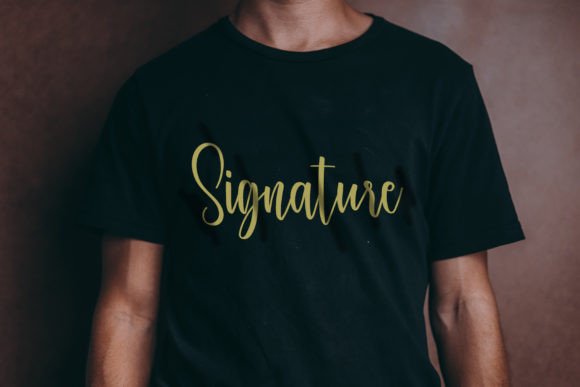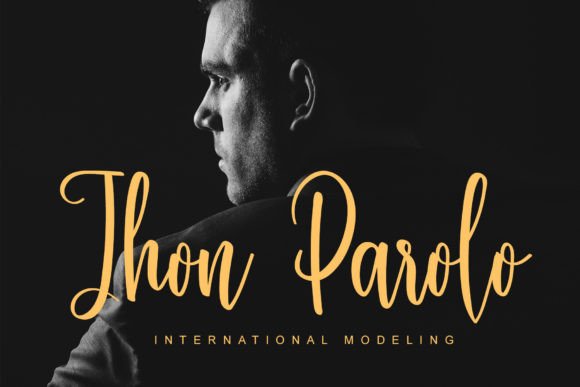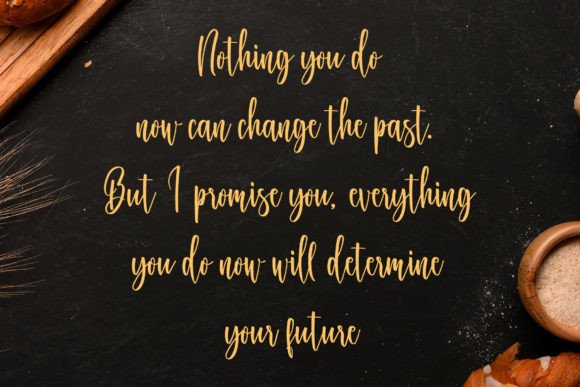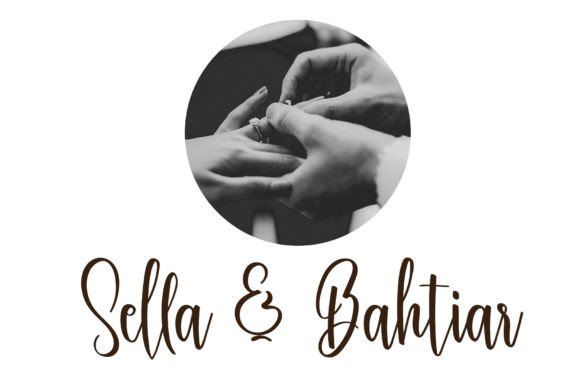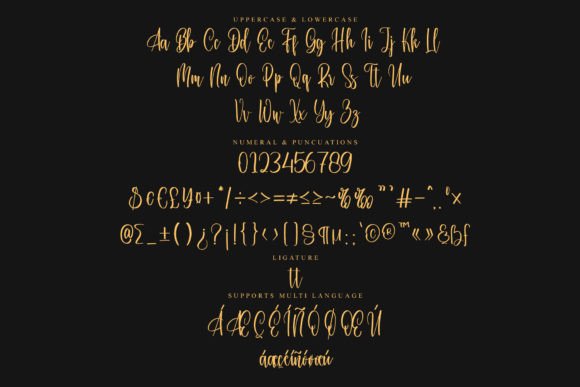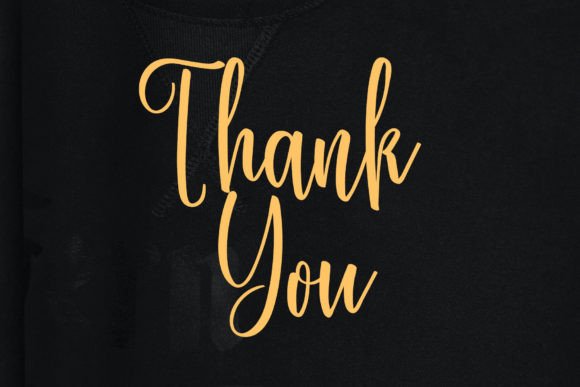
Bella Queen Font: Elevate Your Designs with Timeless Elegance
In the world of typography, few fonts manage to capture the essence of classic calligraphy while still exuding a modern vibe. Bella Queen Font is one such gem that has been making waves in the design community. This stylish handwritten font is not just a typeface; it’s an experience. With its contemporary atmosphere and impeccable form, Bella Queen is the perfect addition to any design project that demands elegance and sophistication.
The Inspiration Behind Bella Queen
Bella Queen Font draws its inspiration from timeless classic calligraphy, a art form that has been cherished for centuries. The creators of Bella Queen have masterfully blended traditional calligraphic elements with modern design sensibilities, resulting in a font that feels both nostalgic and fresh. This fusion of old and new is what sets Bella Queen apart from other fonts in its category.
Key Features of Bella Queen Font
• Contemporary Atmosphere: Bella Queen boasts a modern aesthetic that makes it suitable for a wide range of design projects, from branding and advertising to packaging and digital media.
• Impeccable Form: The font’s design is characterized by its balanced and varied letterforms, ensuring that every word and sentence flows smoothly and reads effortlessly.
• Handwritten Style: The elegant, cursive script of Bella Queen adds a personal touch to any project, making it perfect for designs that require a human and approachable feel.
• Versatility: Whether you’re working on a luxury brand campaign, crafting invitations, or creating engaging digital content, Bella Queen’s versatility ensures it will complement your project beautifully.
Why Choose Bella Queen Font?
For designers and crafters, the choice of font can make or break a project. Here are a few reasons why Bella Queen stands out:
• Enhances Beauty: Bella Queen was designed to enhance the beauty of your projects. Its elegant strokes and classic appeal can elevate even the simplest designs.
• Easy to Read: Despite its ornate appearance, Bella Queen is remarkably legible, making it suitable for both headings and body text.
• Unique yet Familiar: The font strikes a perfect balance between uniqueness and familiarity, ensuring your designs stand out without alienating your audience.
Using Bella Queen Font in Your Projects
• Branding: Use Bella Queen to create stunning logos, business cards, and brand guidelines that exude luxury and sophistication.
• Digital Content: Enhance your website, blog, or social media graphics with Bella Queen’s elegant typography, making your content more engaging and shareable.
• Stationery: From wedding invitations to corporate letterheads, Bella Queen can add a touch of class to your stationery designs.
Bella Queen Font is more than just a typeface; it’s a design statement. With its roots in classic calligraphy and its eye towards modern design, Bella Queen offers the best of both worlds. Whether you’re a professional designer or a DIY enthusiast, Bella Queen can help you create projects that are not only visually stunning but also timeless. So, why settle for ordinary when you can make your designs extraordinary with Bella Queen?